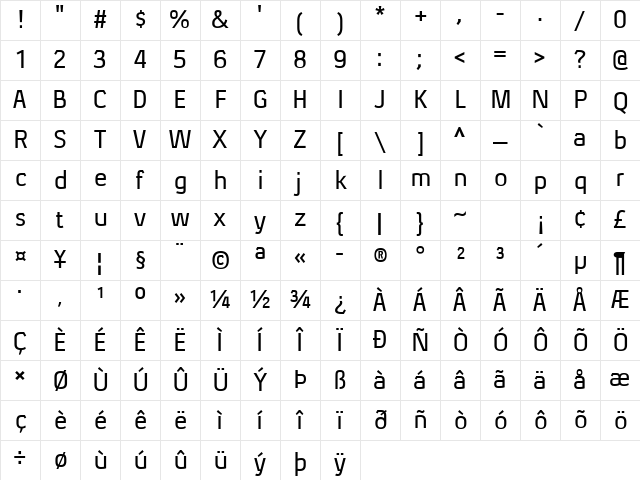
Xenu Regular
Design Context for Xenu
Xenu is a composed and adaptable typeface that performs quietly and consistently across a wide range of design contexts.